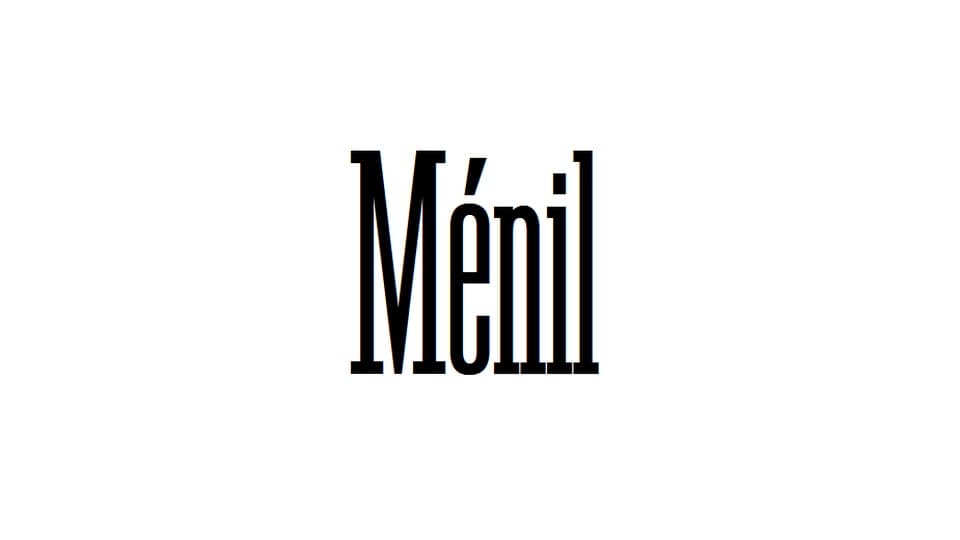
Download Ménil font, a condensed slab serif typeface, inspired by the Egyptian No. 1, a wooden character distributed by the Parisian foundry Deberny & Peignot during the 1930s.
Designer: Louna Bourdon